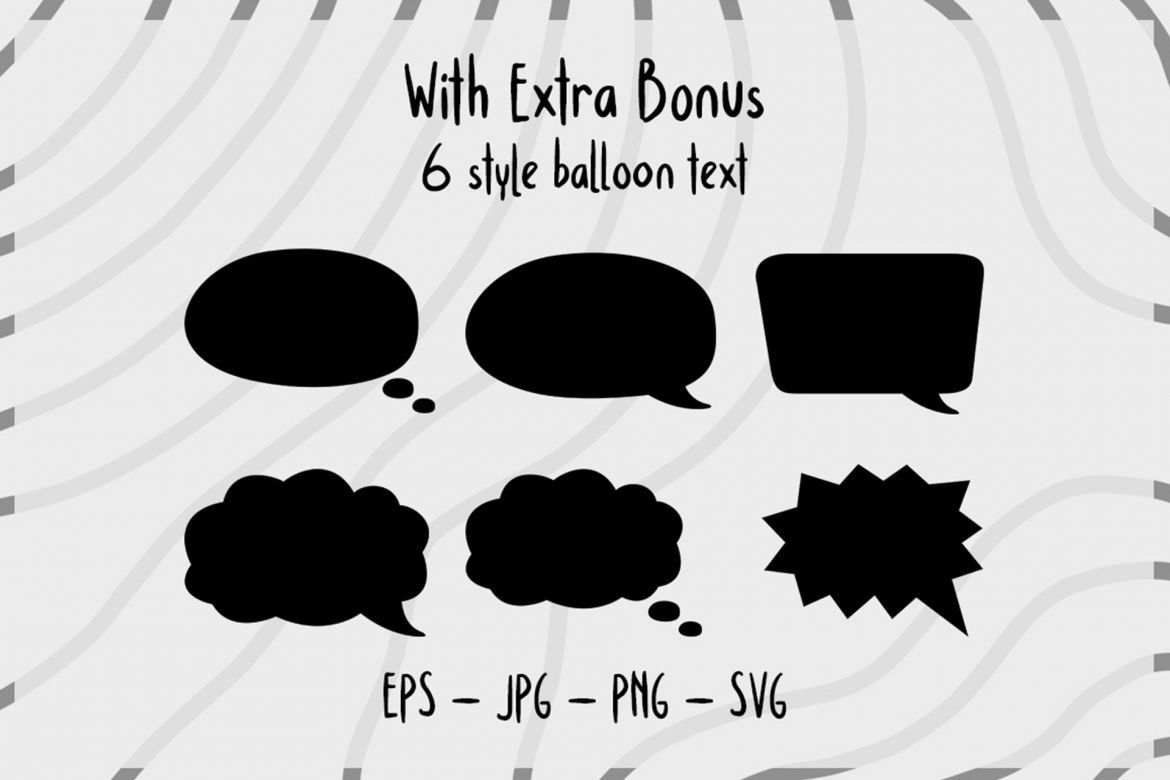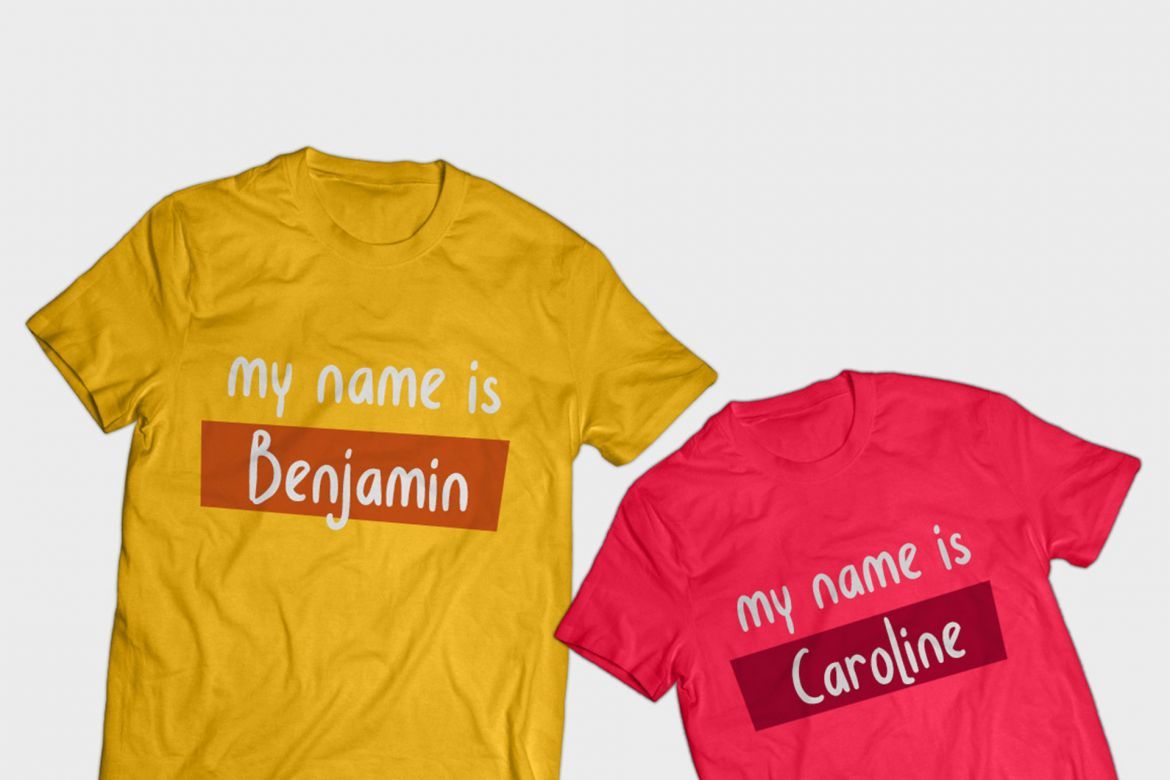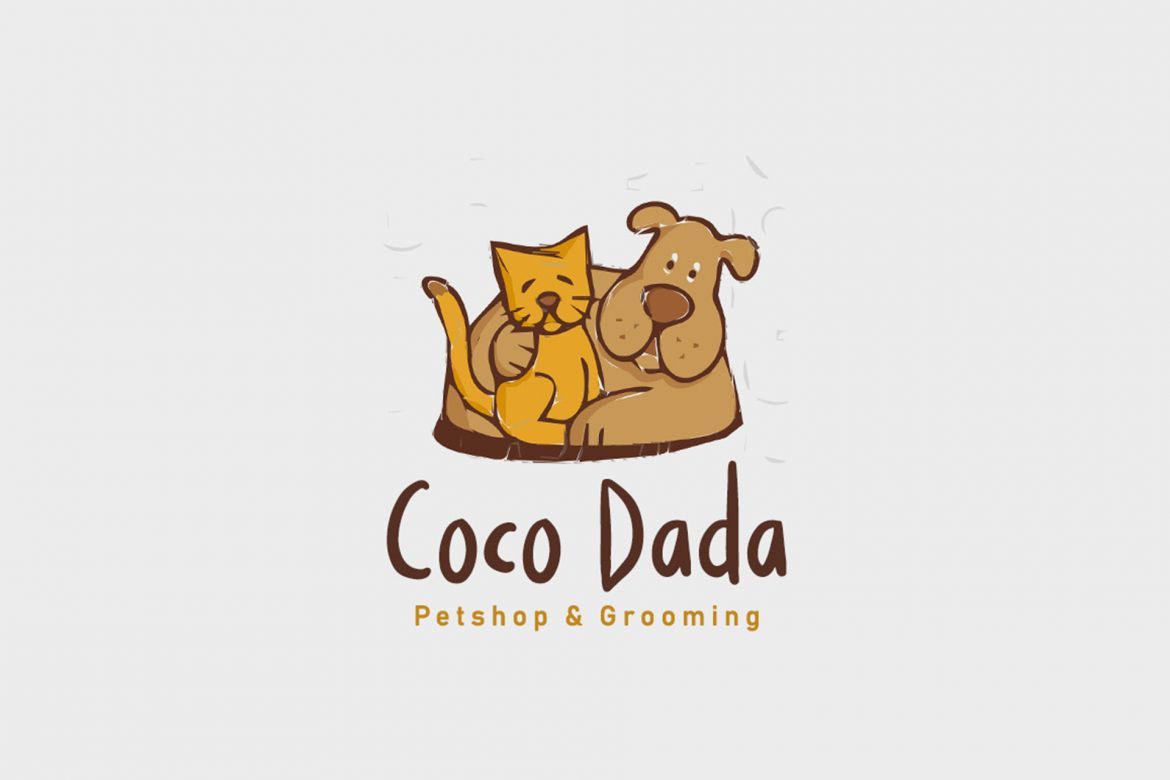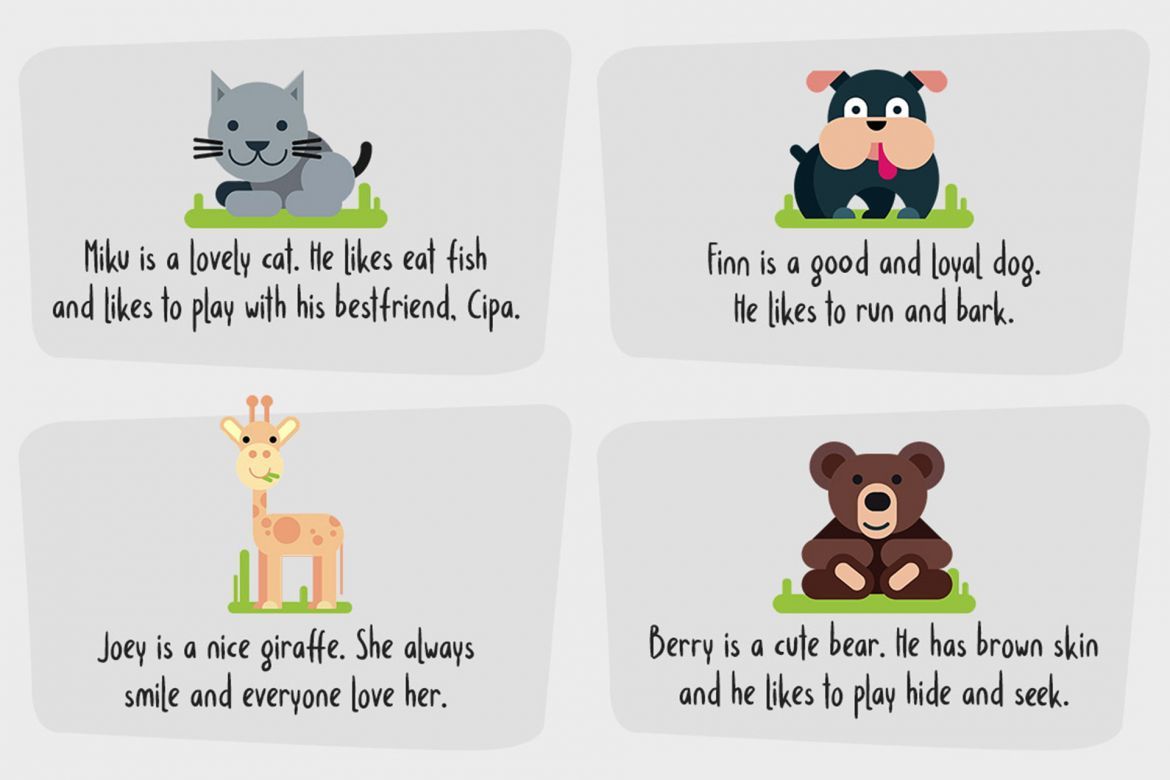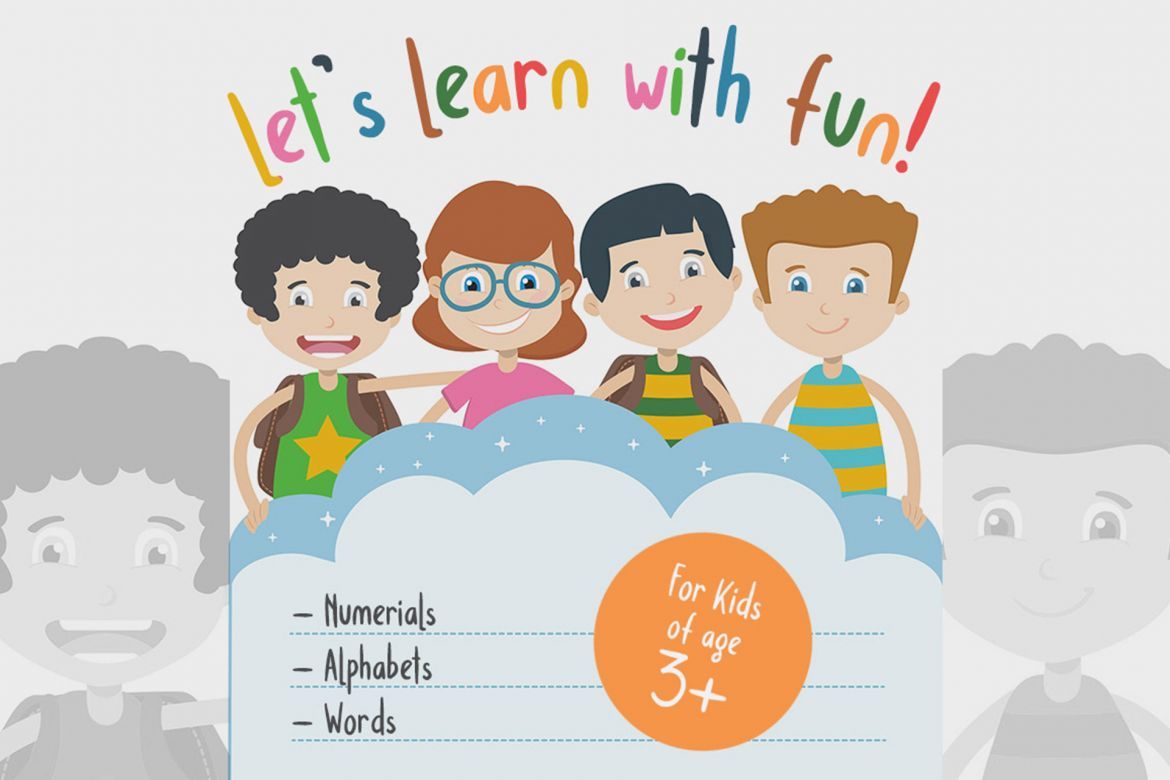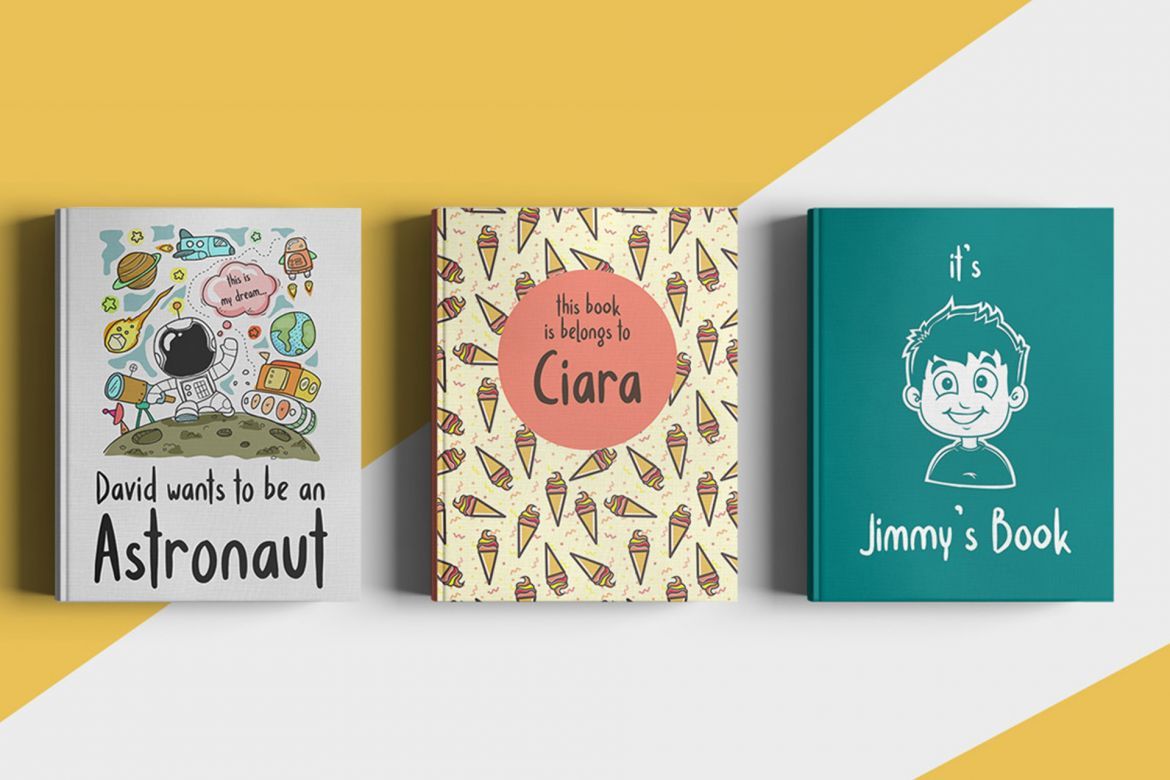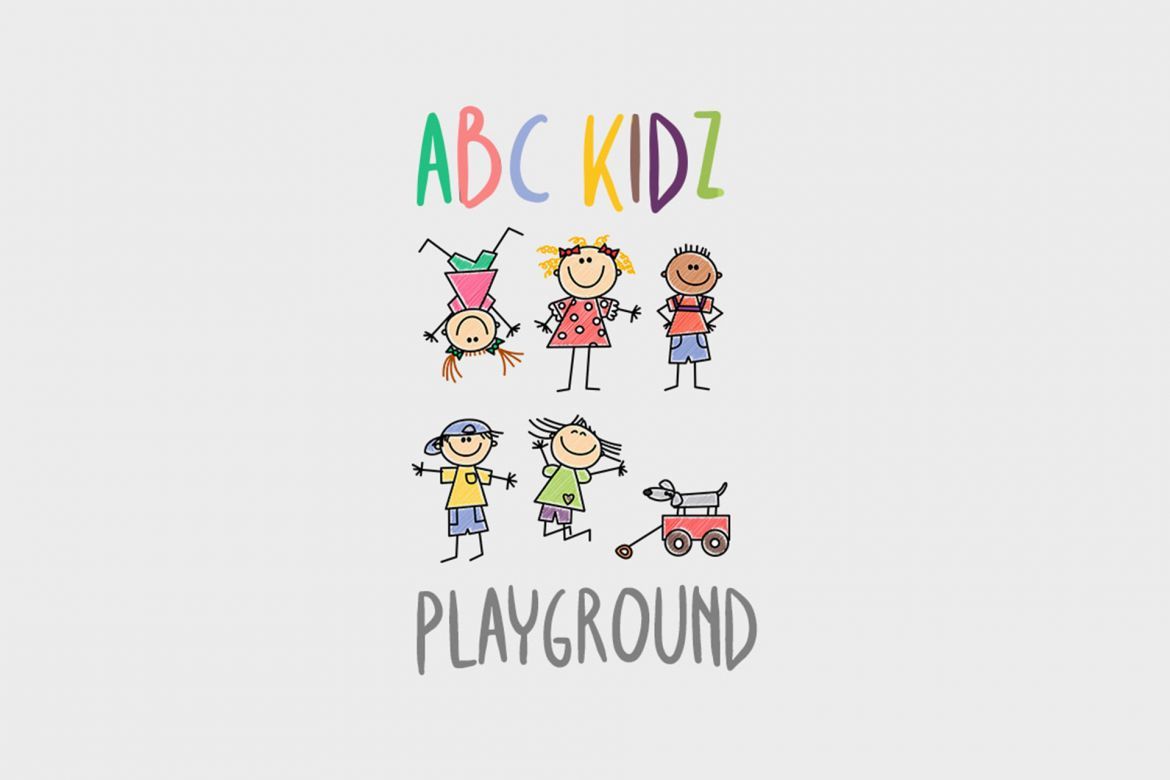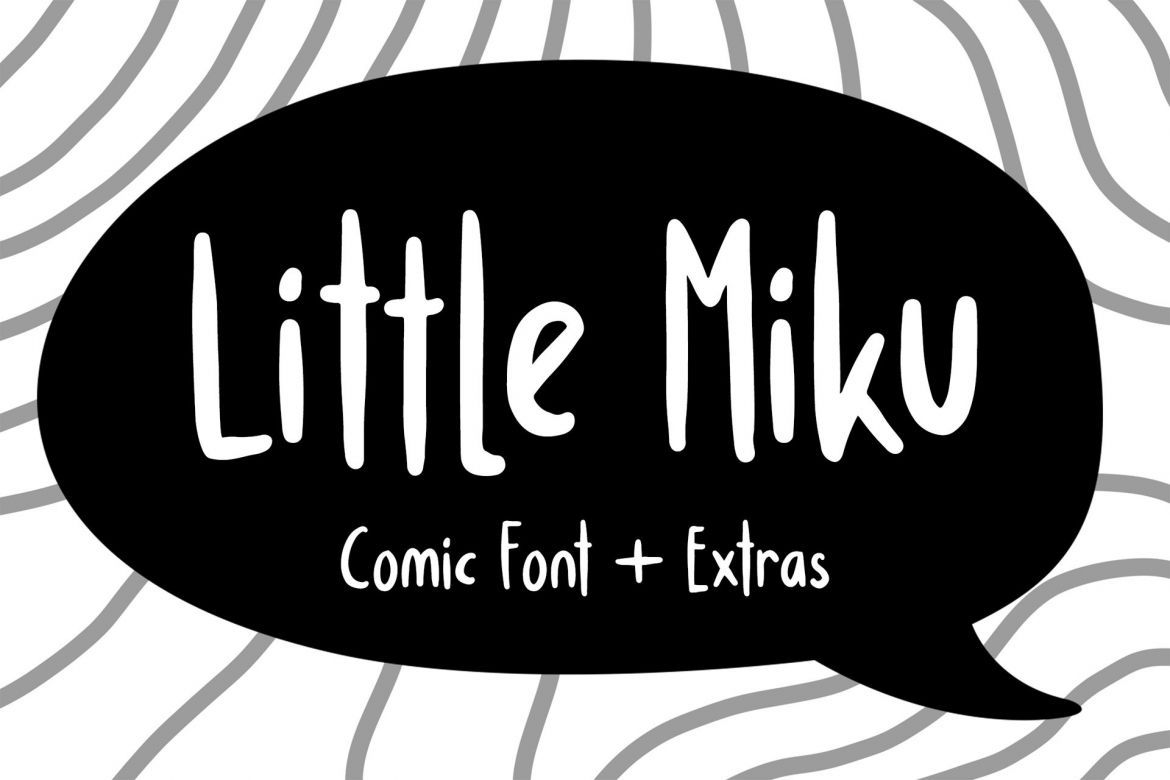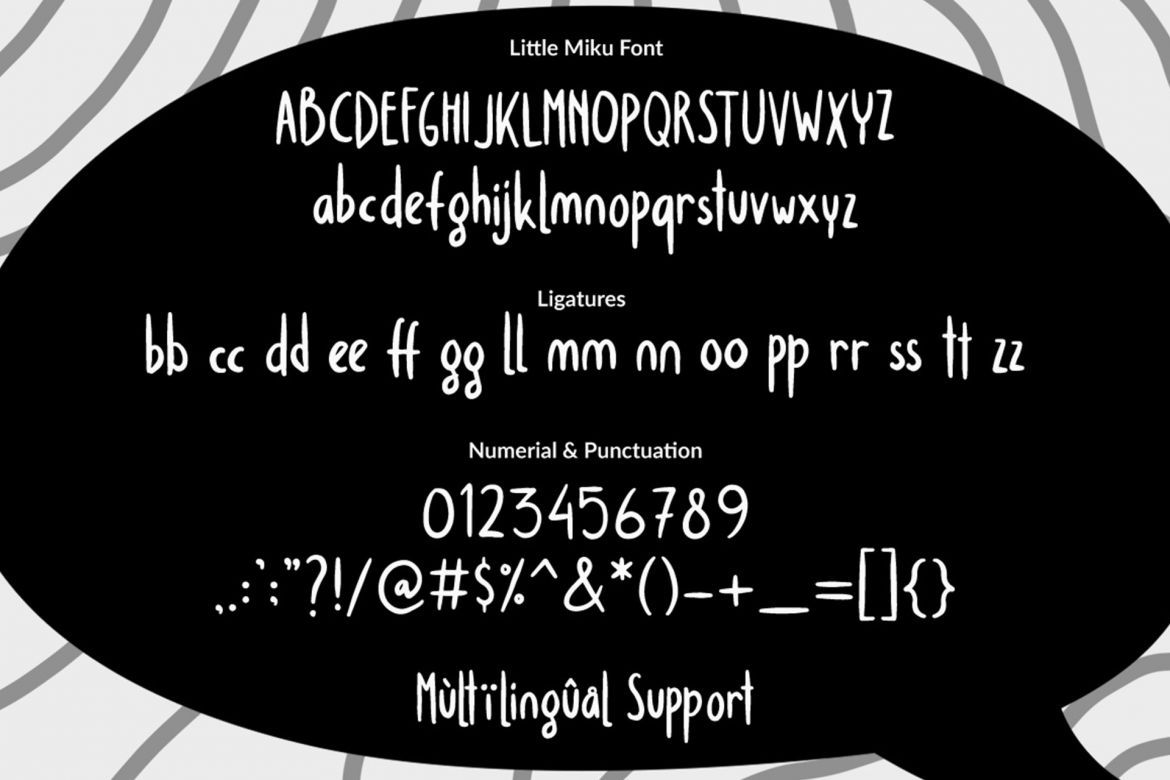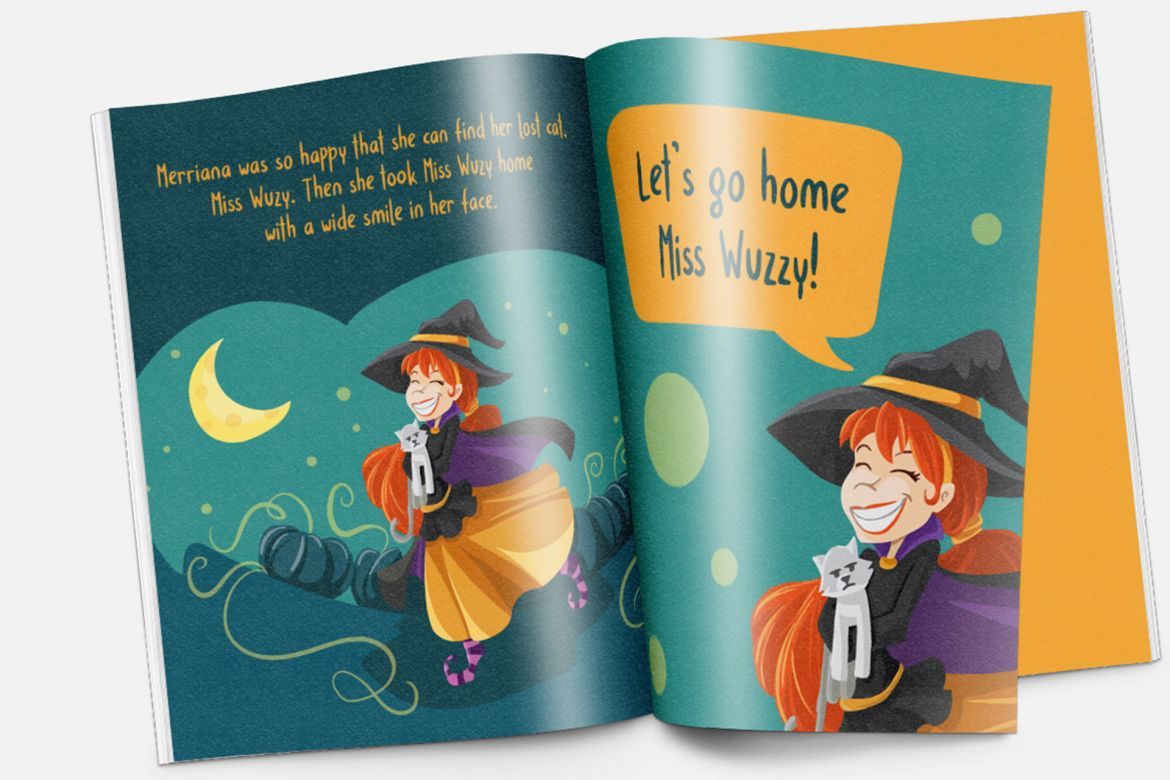
Little Miku Cartoon Font
Little Miku is a playful comic font. Because it is doodle-handmade, it looks very natural and authentic. You can use this for comics, kids illustrations & story books, playful branding and more. Little Miku also comes with an extra bonus of six stylish balloon text-bubbles.
• bonus 6 vector bubble texts